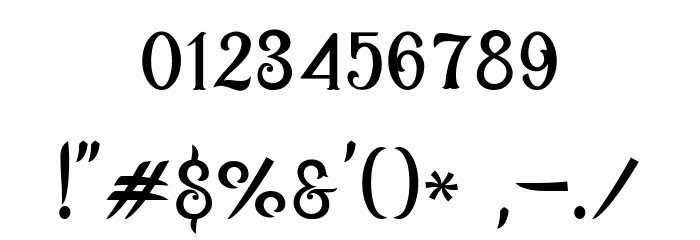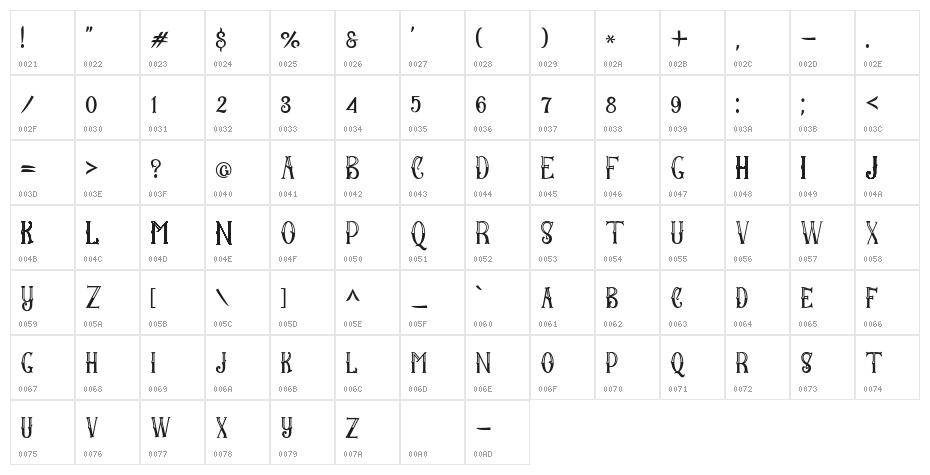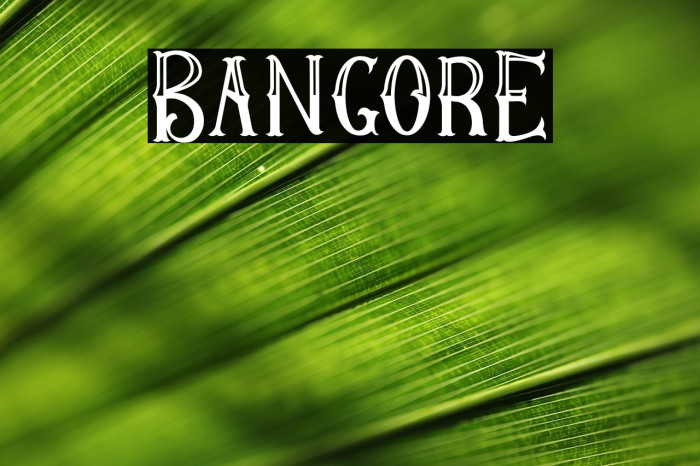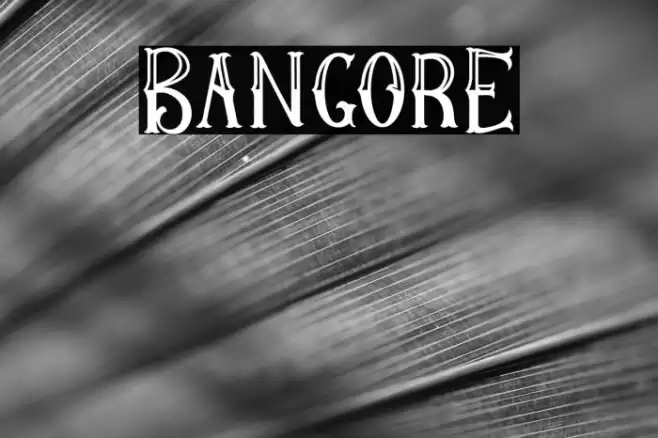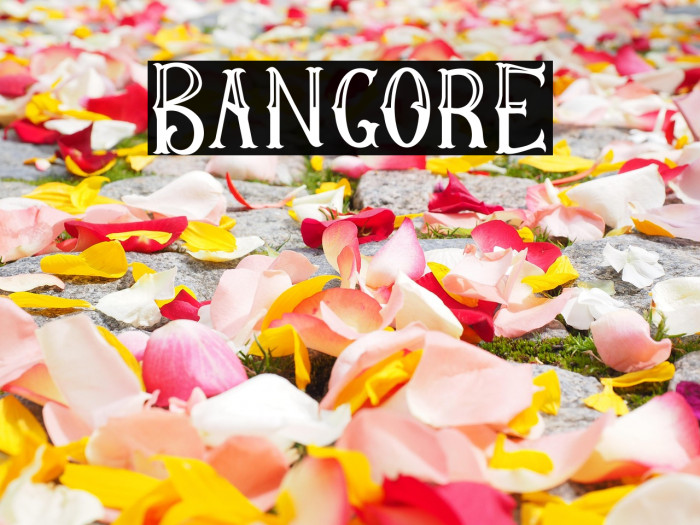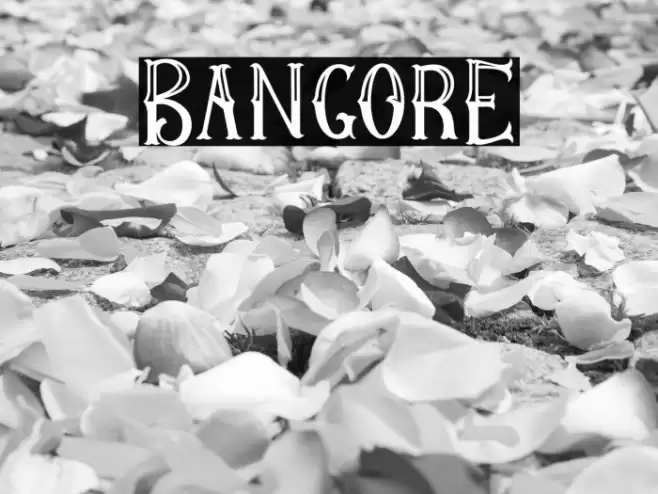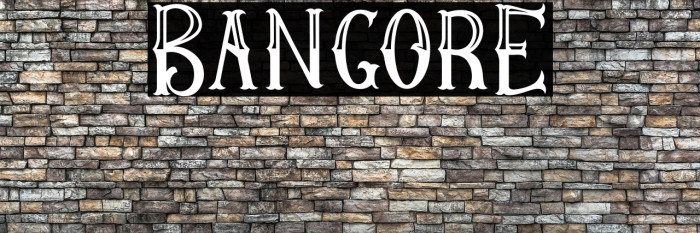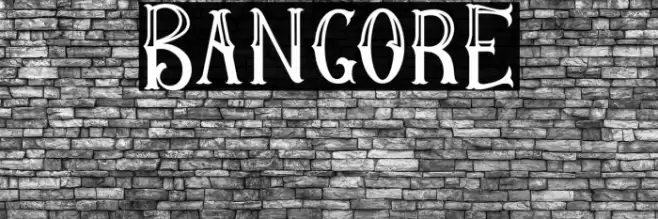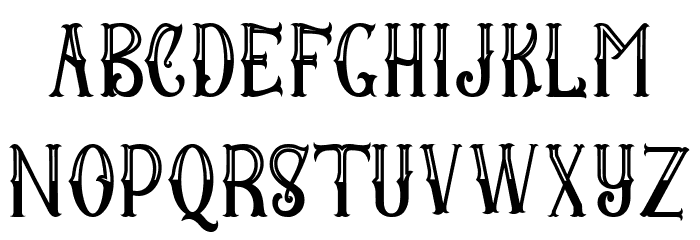
BangorE Font
BangorE Description
This font features a decorative and artistic style with a vintage flair. The uppercase letters are characterized by unique flourishes and varying stroke widths, giving them a dynamic and ornate appearance. The lowercase letters maintain a consistent style, complementing the uppercase with their own subtle embellishments. The numerals are clear and bold, ensuring readability while maintaining the font's decorative nature. Special characters are designed with the same attention to detail, making them suitable for creative and expressive text compositions. Overall, this font exudes a sense of elegance and creativity, making it ideal for projects that require a touch of sophistication and artistic flair.
| Use Case | Headlines, Logos, Decorative text |
| Proposed Projects | Ideal for wedding invitations, vintage-themed posters, branding for luxury products, and artistic book covers. |